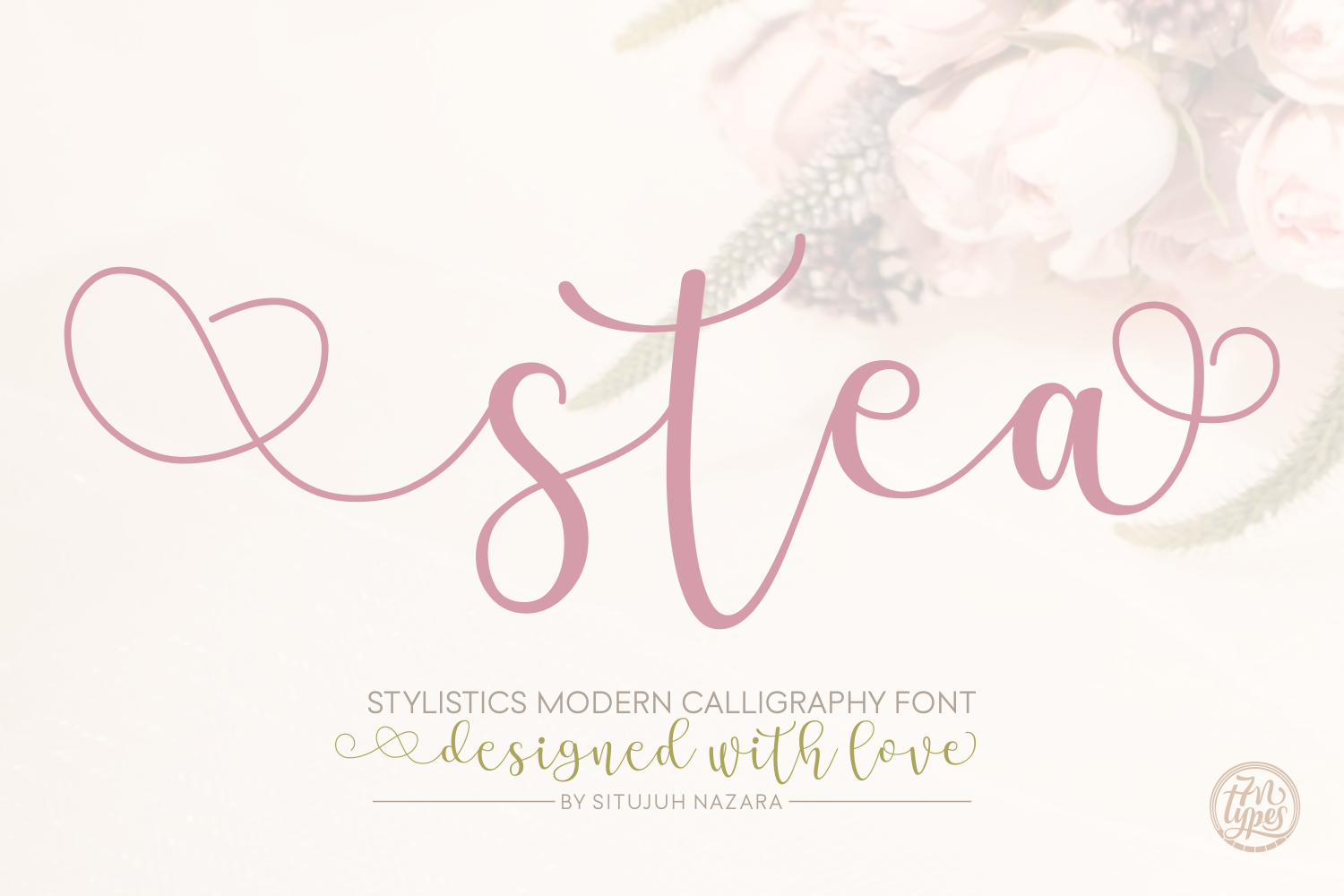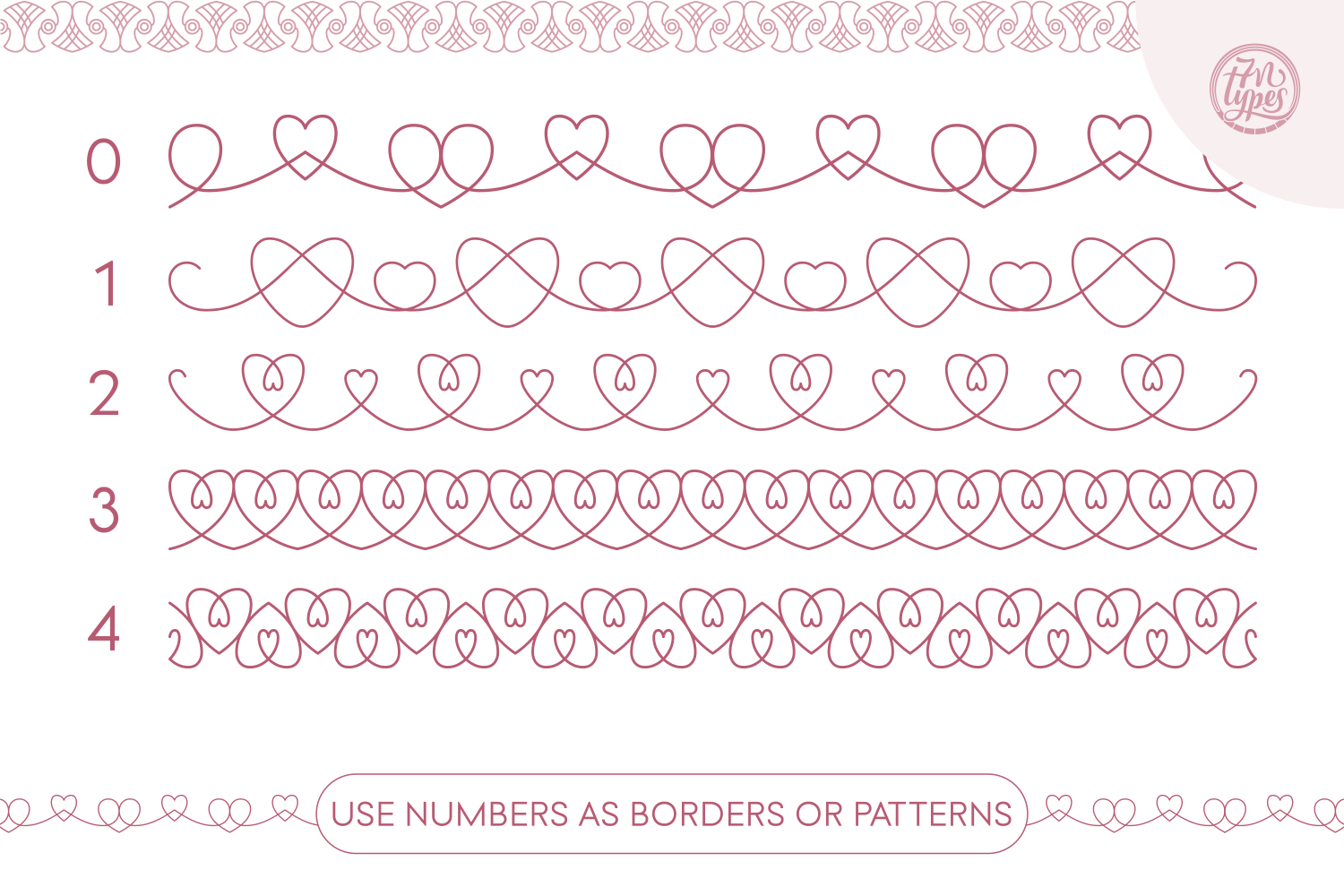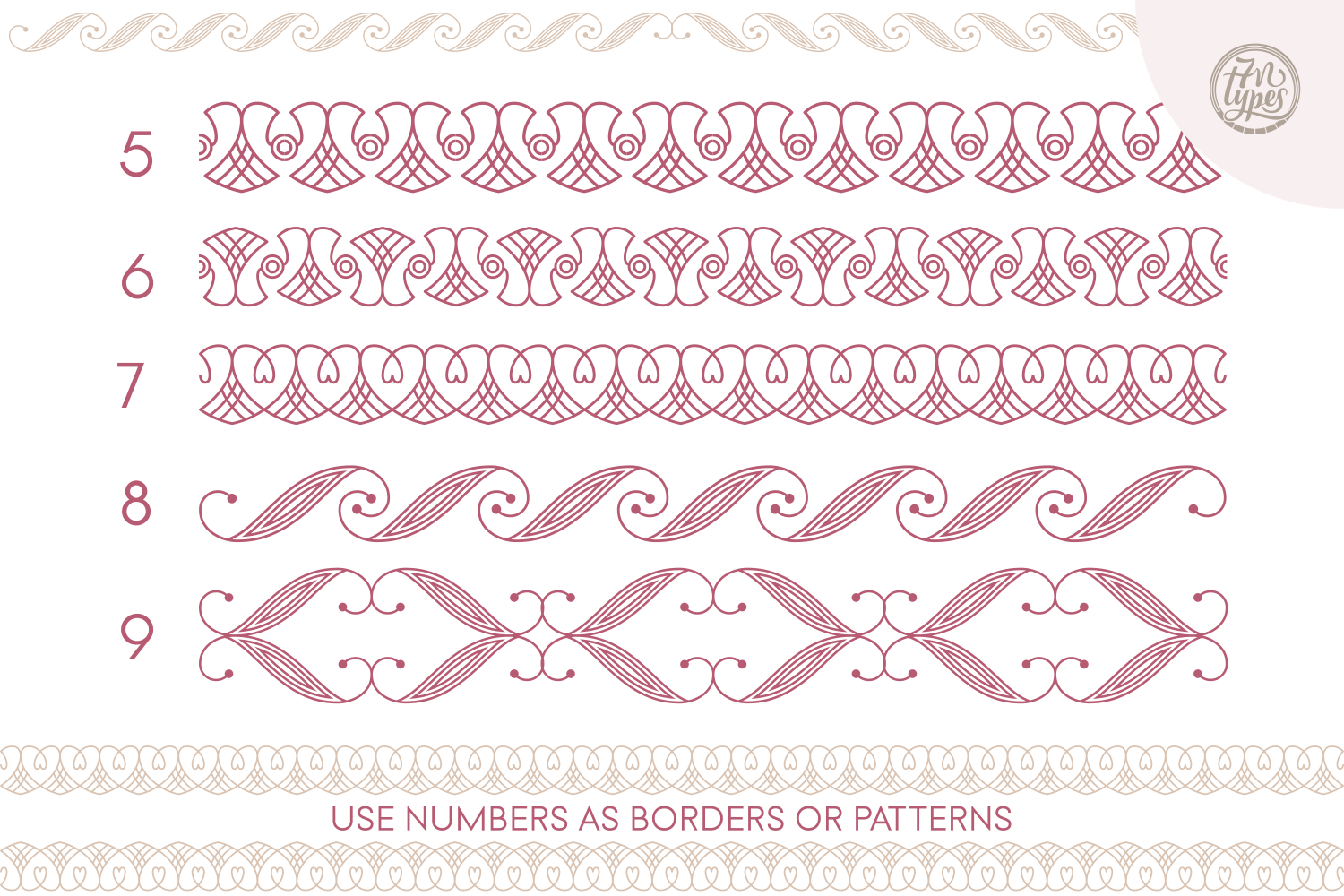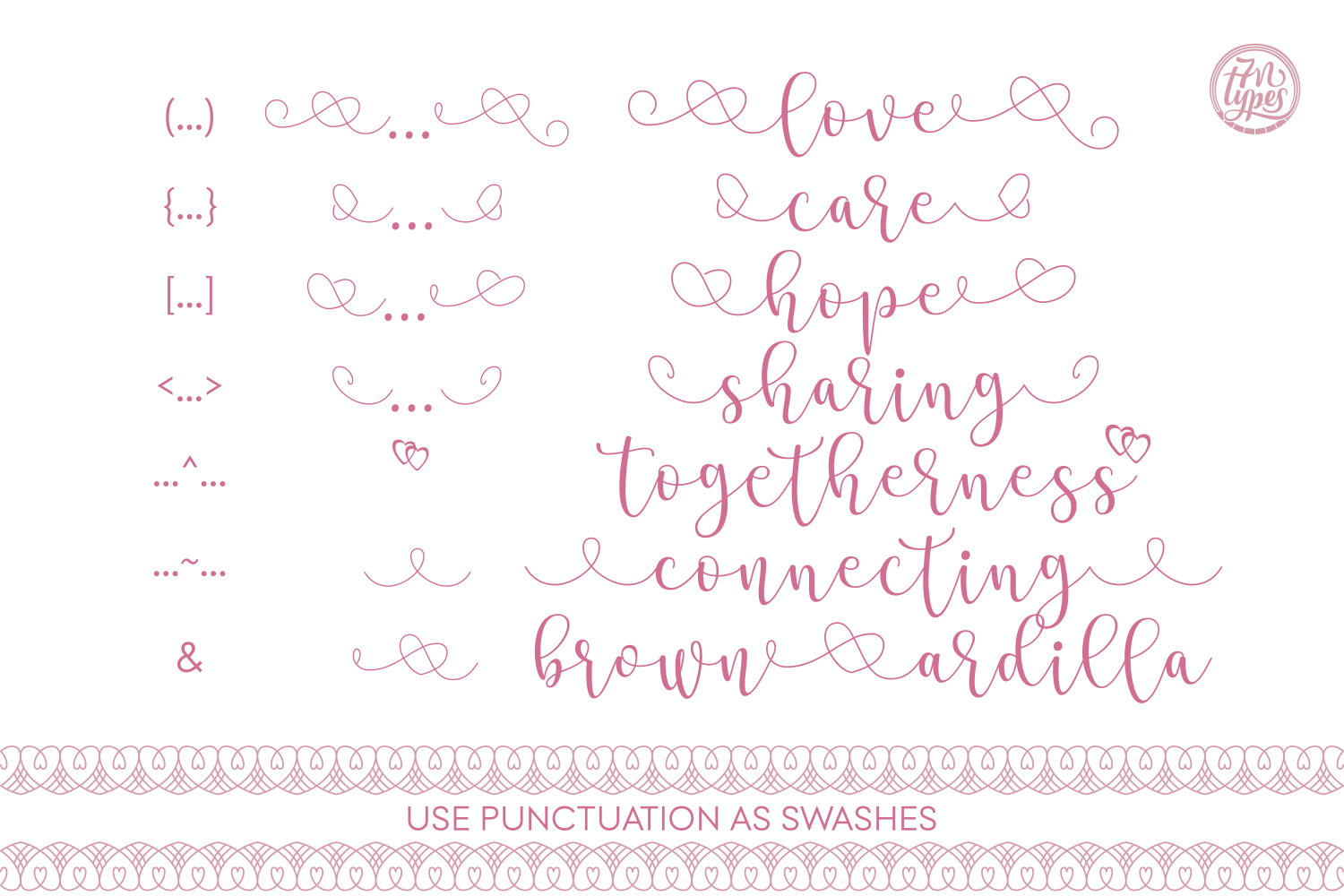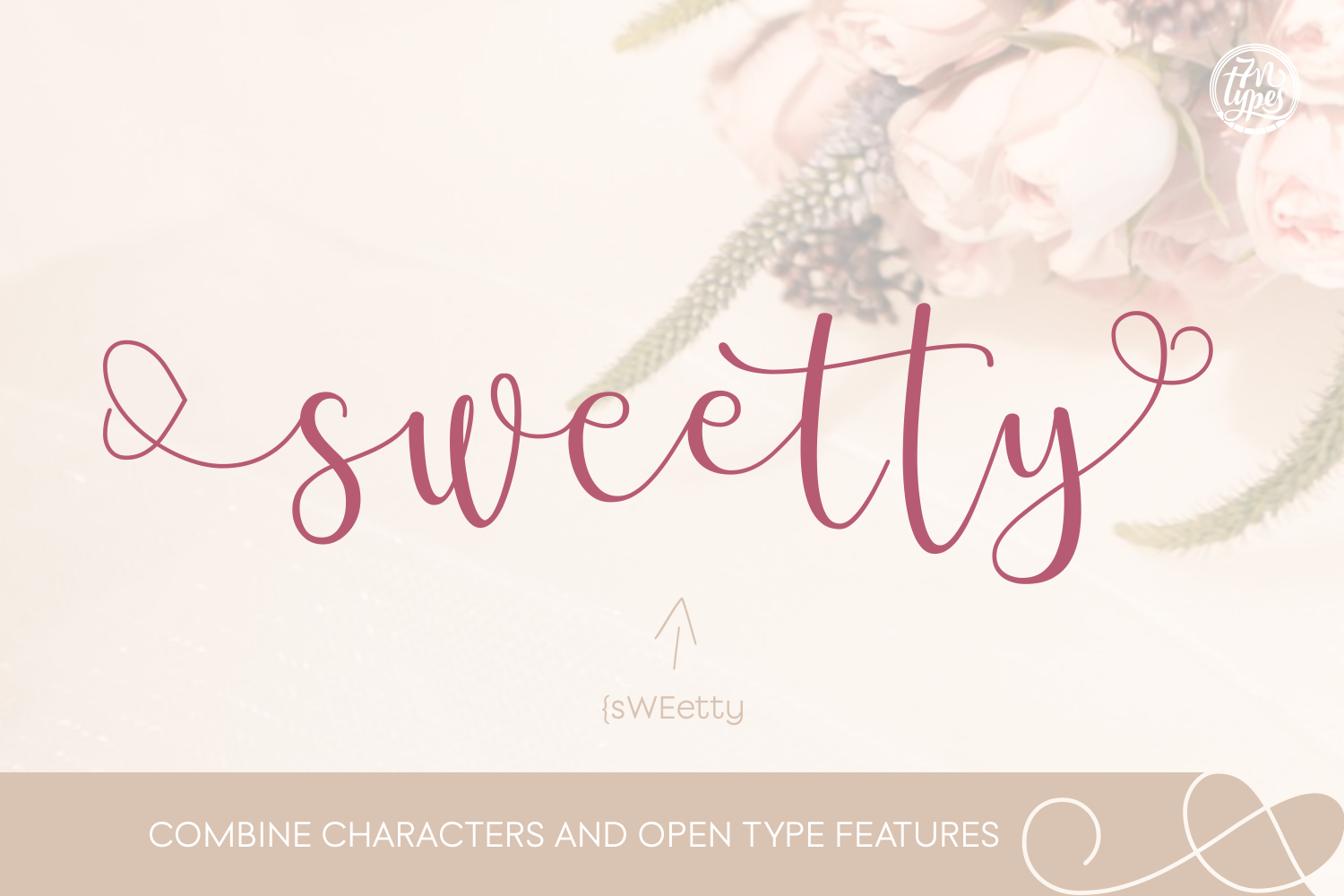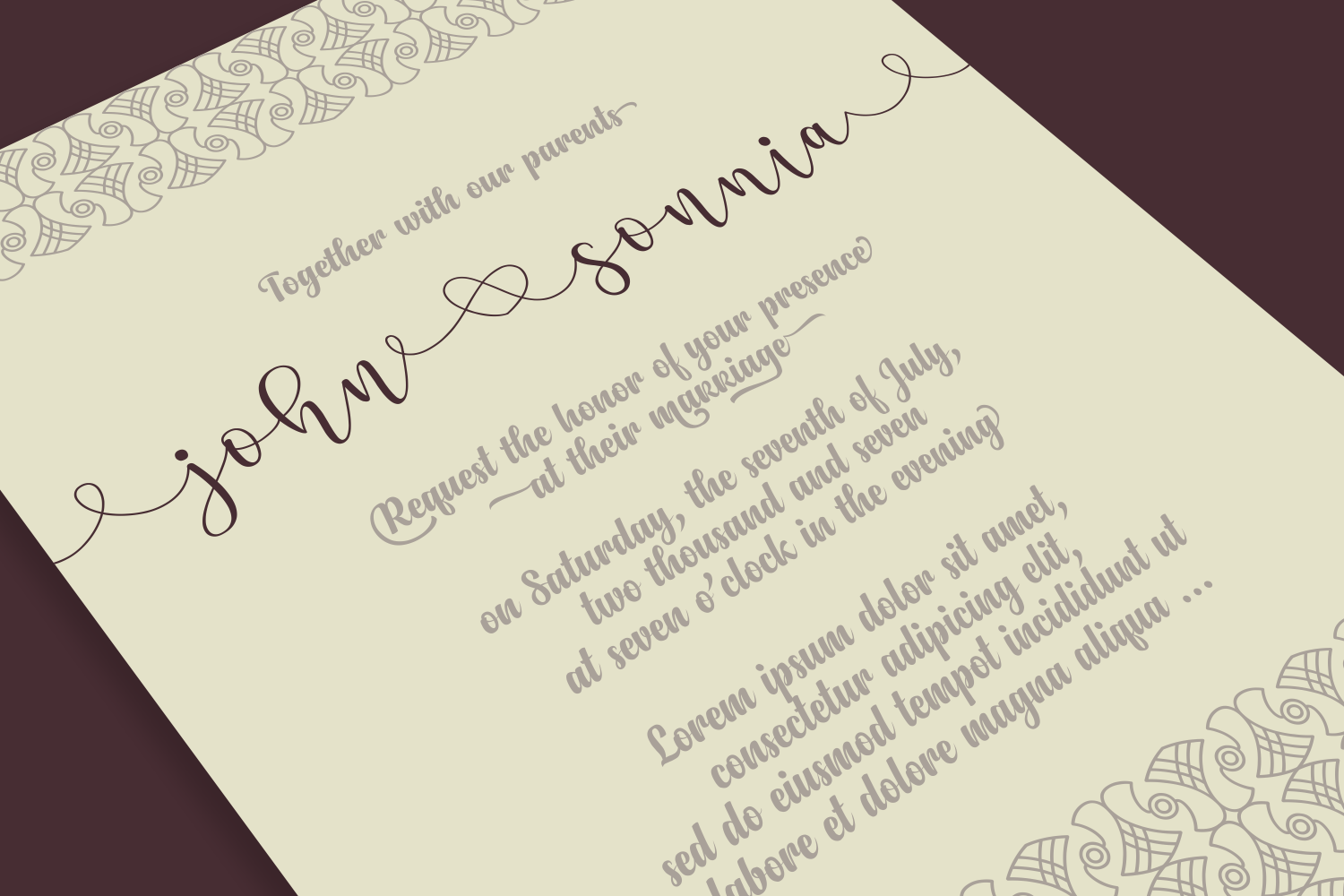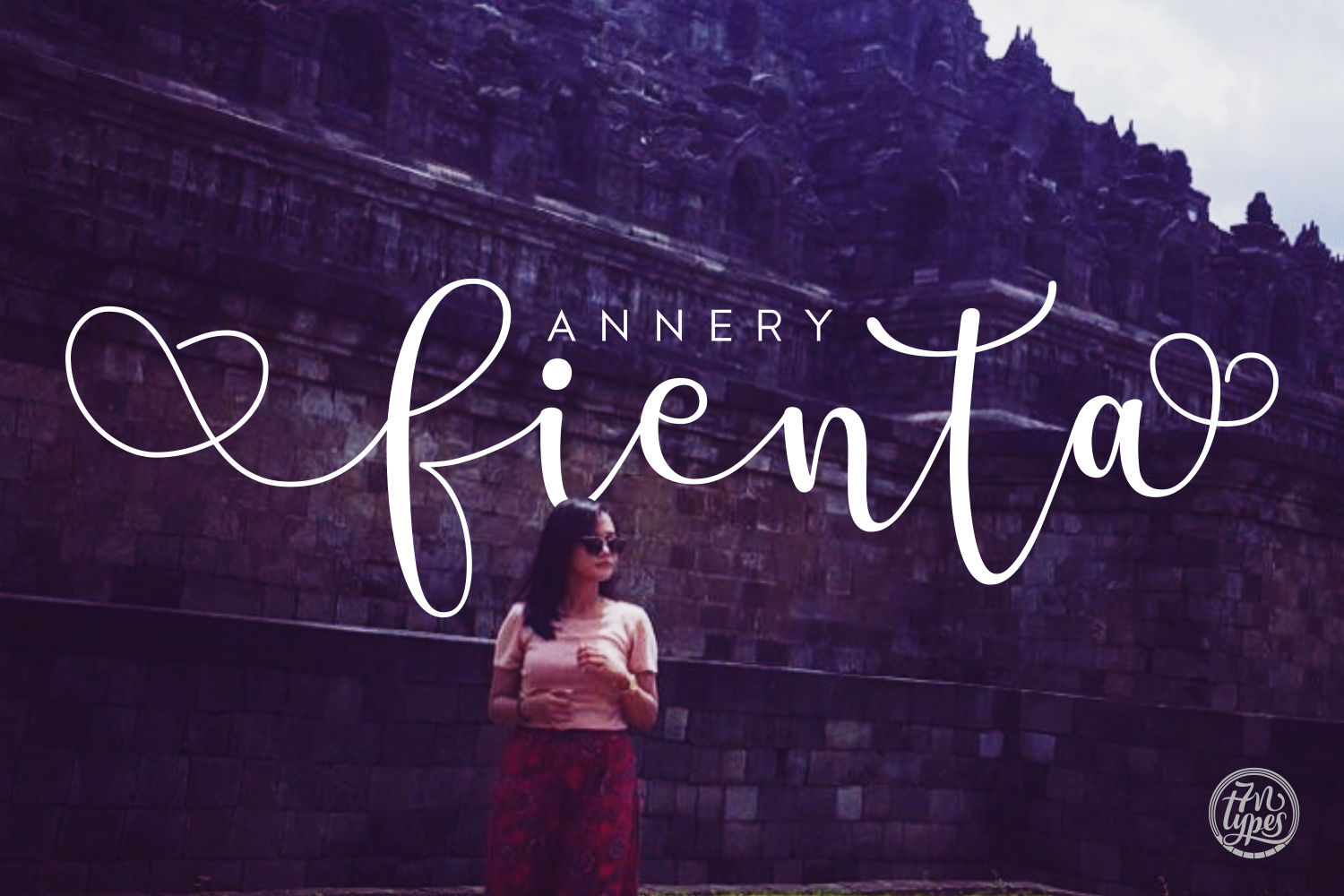
Stea Font
About Stea Font
Stea is a fun, decorative script font created by Situjuh Nazara.
This font comes with stunning decorative characters that can be used to decorate the end and beginning of words as well as gluing words together. This allows for unique combinations that make your designs stand out.